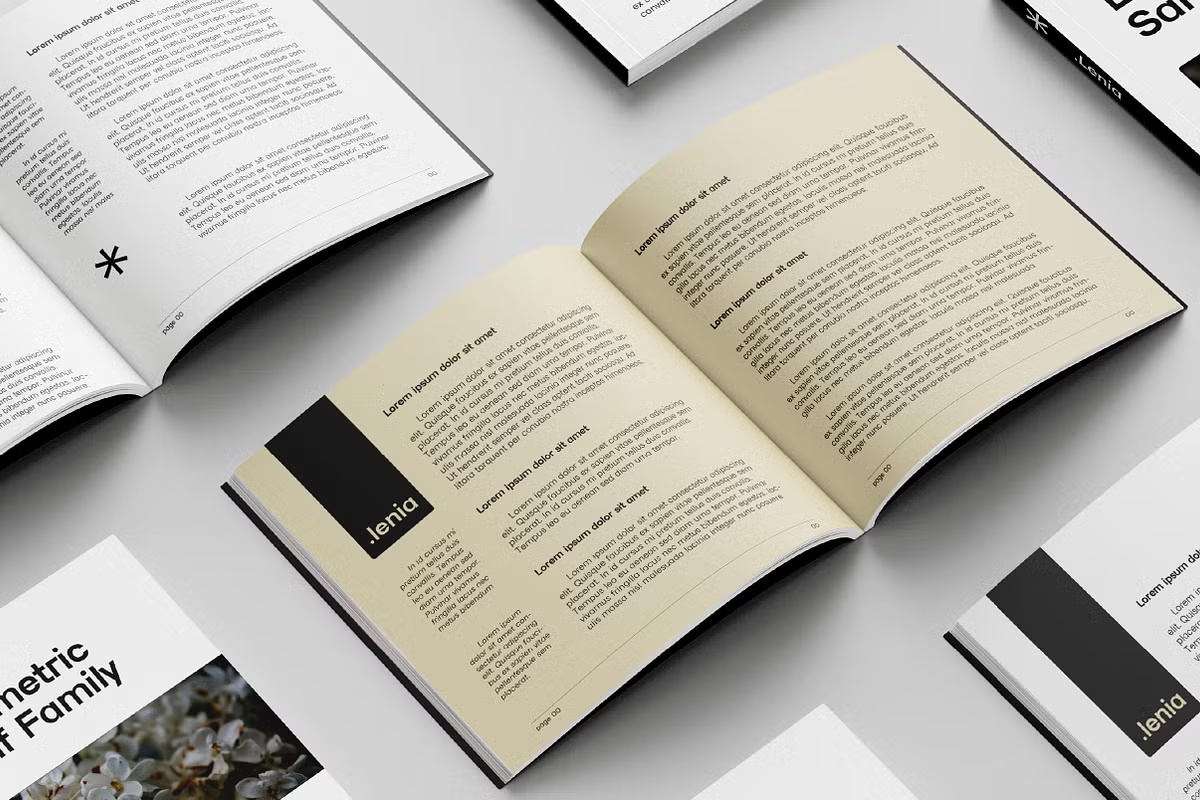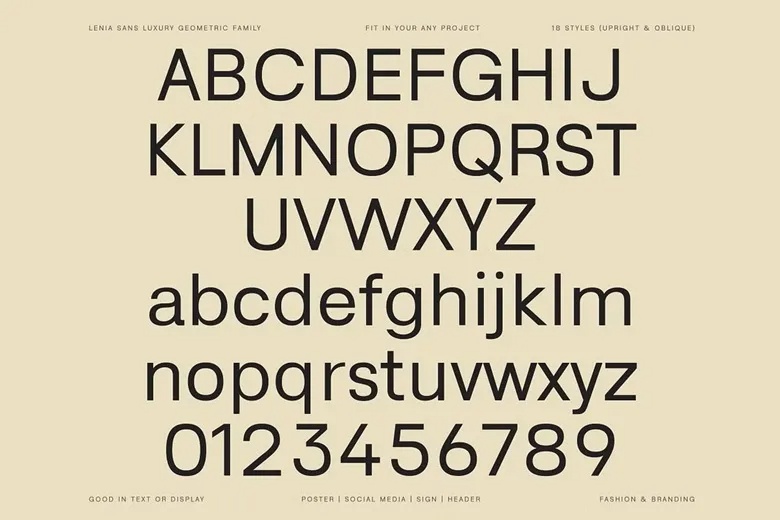
Lenia Sans Font
Lenia Sans is a modern sans serif geometric font that elegantly balances contemporary minimalism with classical aesthetics. Its design blends simplicity with a natural, refined structure, offering a harmonious feel that is both neutral and distinctive. With sharp, geometric elements that reflect modern typefaces, Lenia Sans also maintains a friendly and approachable tone, making it versatile for a wide range of design purposes. The font family includes 18 weights, ranging from thin to black, along with matching oblique styles to expand creative flexibility.
MS Silica, a part of this type collection, comes equipped with various OpenType features such as stylistic alternates for letters like a, r, g, and y, as well as support for superior and inferior figures, fractions, circled numerals, standard ligatures, arrows, and an extended Latin language character set. These features contribute to high legibility, a crisp appearance, and a clean finish, making it ideal for polished and modern design work.
Perfectly suited for projects across fashion, print design, social media graphics, branding, marketing posters, UI/UX interfaces, packaging, and editorial layouts, Lenia Sans adds a professional, up-to-date look to any visual composition.